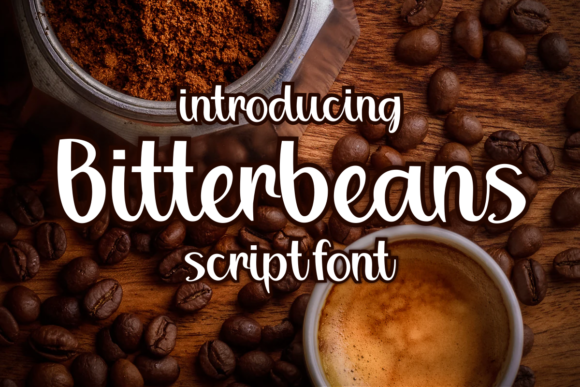
**Introducing Bitterbeans Font: The Epitome of Enchanting Script**
Immerse yourself in the mesmerizing world of Bitterbeans, a tantalizing script font that dances with elegance and sophistication. Crafted by the visionary Deedeetype, this font is a masterpiece designed to captivate your imagination and elevate your creative endeavors.
**A Symphony of Curves and Strokes**
Like a calligrapher's dream, Bitterbeans flows effortlessly across any surface, leaving a trail of visual enchantment. Its delicate curves intertwine seamlessly, creating a symphony of strokes that gracefully express your heartfelt messages.
**Unleash Your Inner Artist**
With Bitterbeans, your creative potential reaches new heights. Imagine your words adorned in its timeless style, ready to captivate and inspire. Whether you're crafting personal artwork, designing invitations, or simply expressing your emotions, Bitterbeans is the perfect companion to ignite your artistic flame.
**A Font for Every Occasion**
The versatility of Bitterbeans knows no bounds. Its ethereal beauty transforms any project into a work of art, making it an indispensable tool for:
* **Tattoos:** Immortalize your thoughts and memories with Bitterbeans, whose flowing lines will gracefully adorn your skin.
* **Invitations:** Create unforgettable invitations that convey the warmth and charm of your special occasion.
* **Wall Art:** Transform your living space into a gallery, with Bitterbeans inspiring quotes or meaningful words adorning your walls.
* **Logo Design:** Craft a logo that exudes sophistication and style, leaving a lasting impression on your audience.
**Indulge in the Enchantment**
Experience the magic of Bitterbeans today and unlock a world of creative possibilities. Let its enchanting script transport you to a realm of elegance and inspiration. Embrace the beauty of handwritten fonts and elevate your projects to new heights with Bitterbeans.